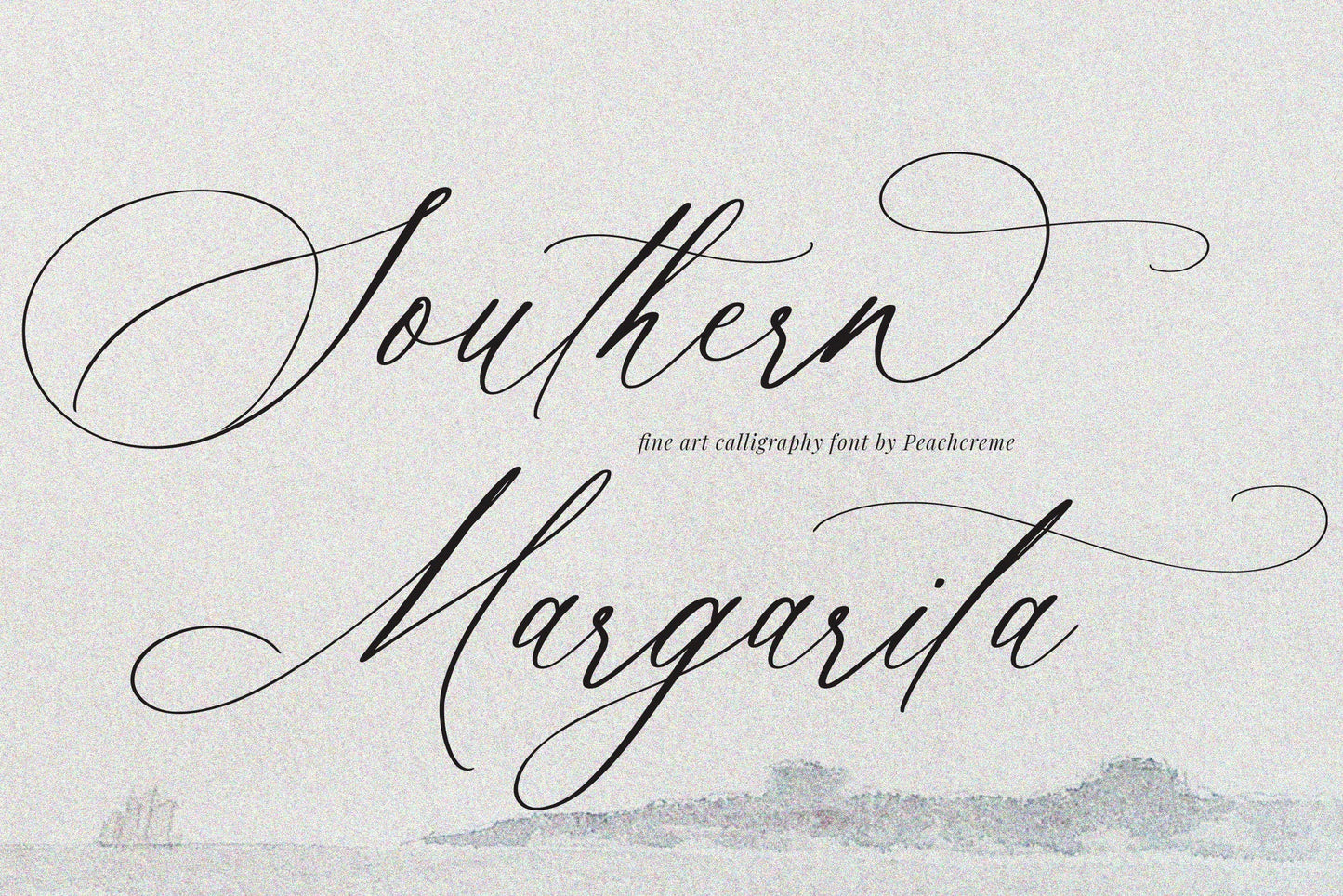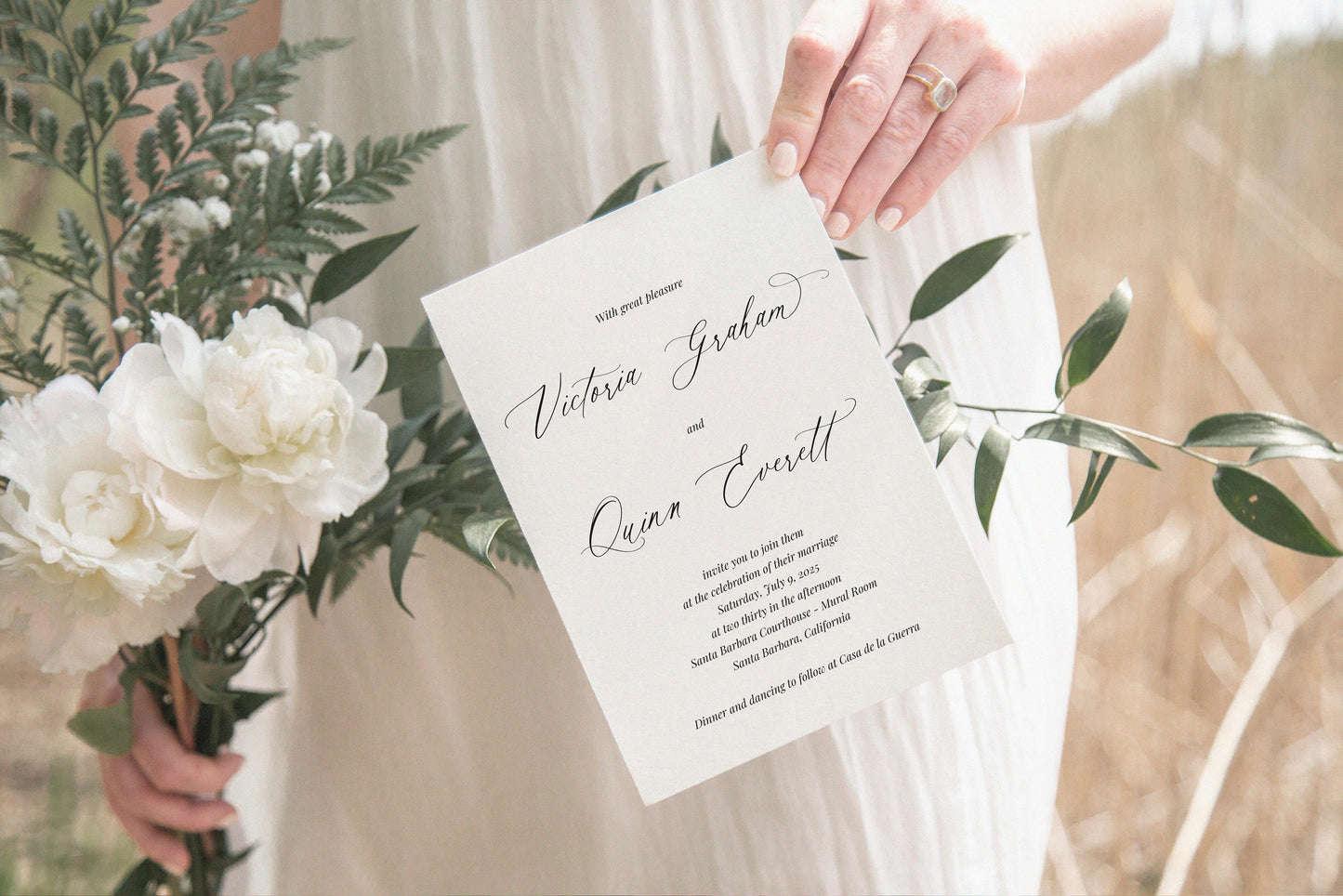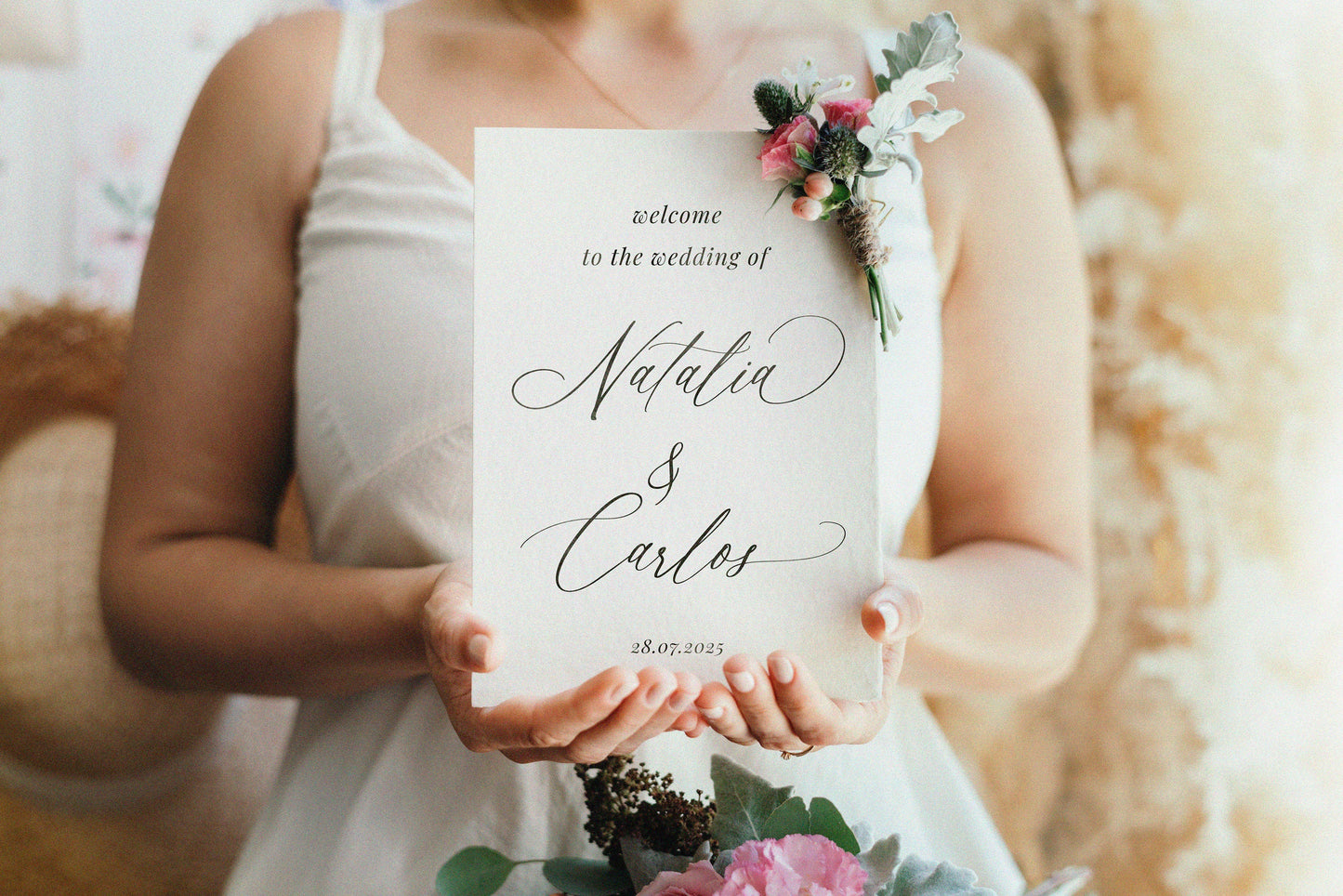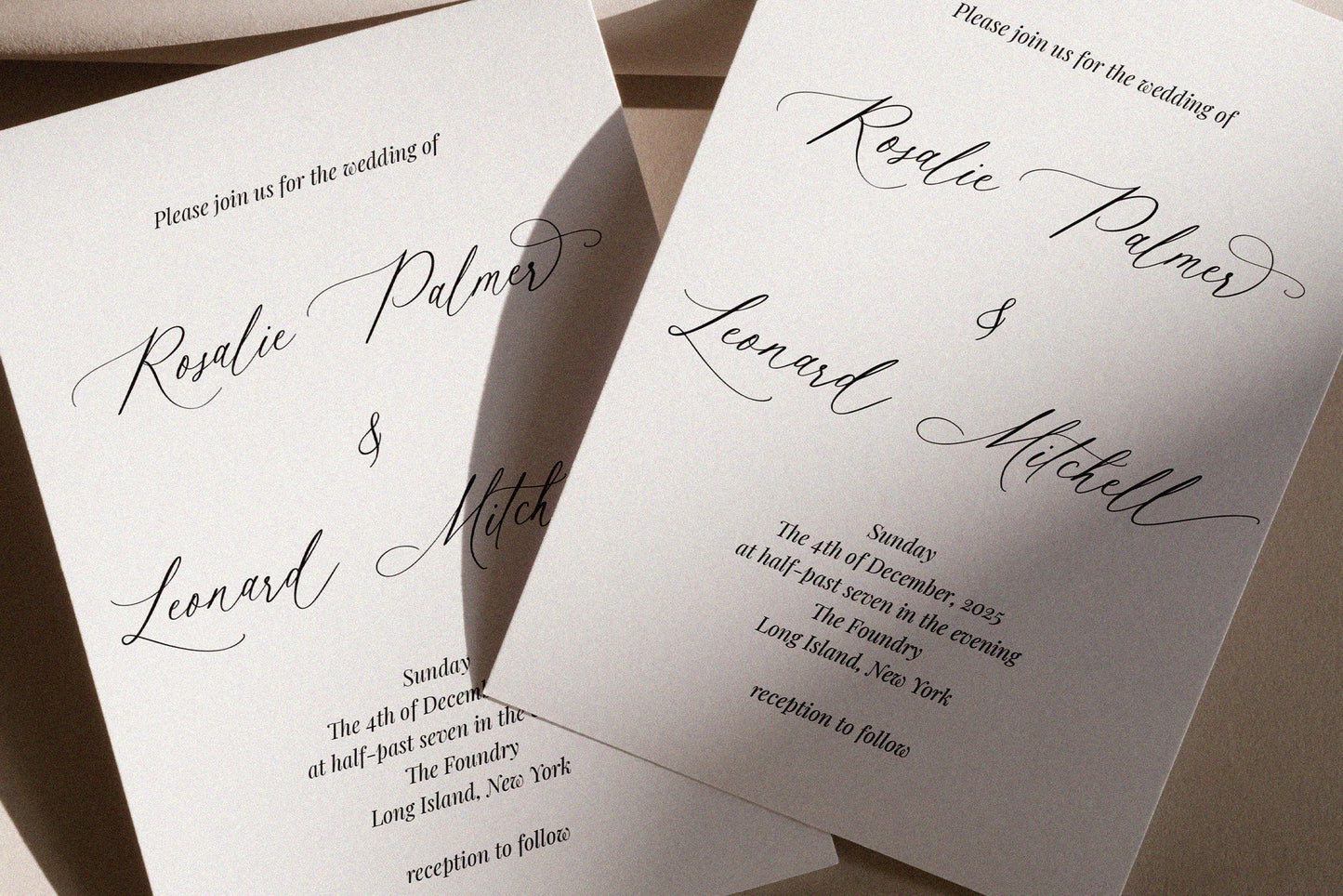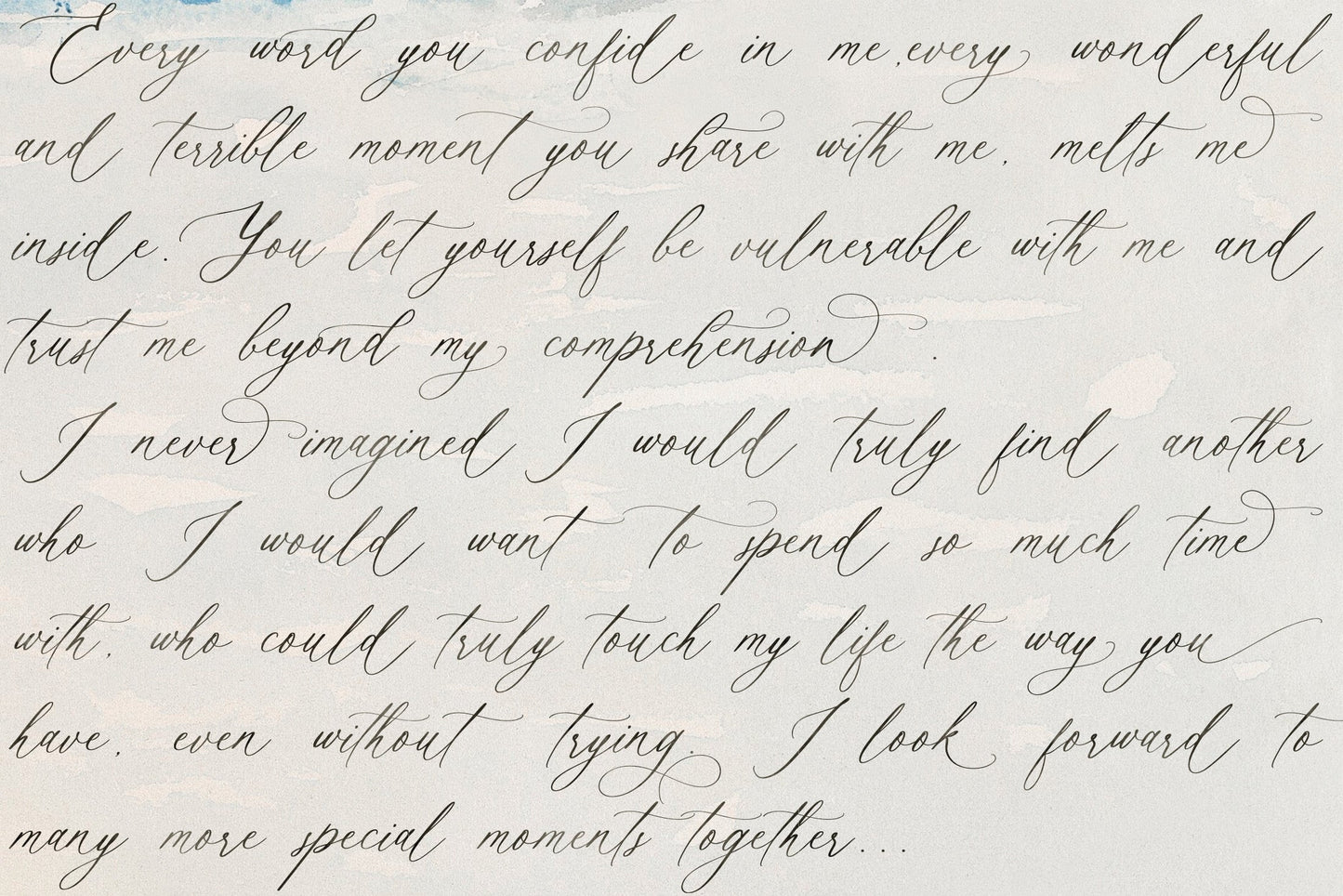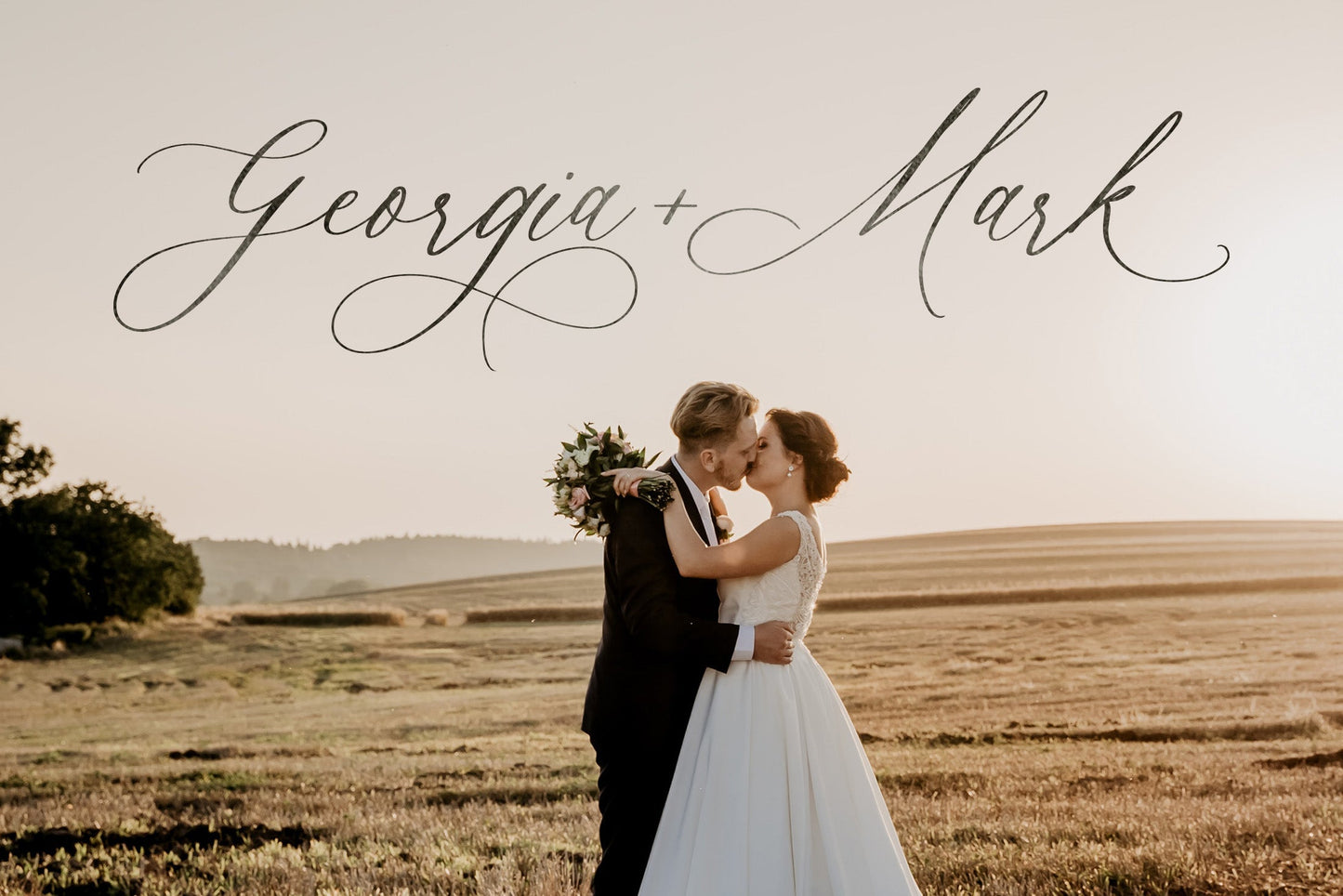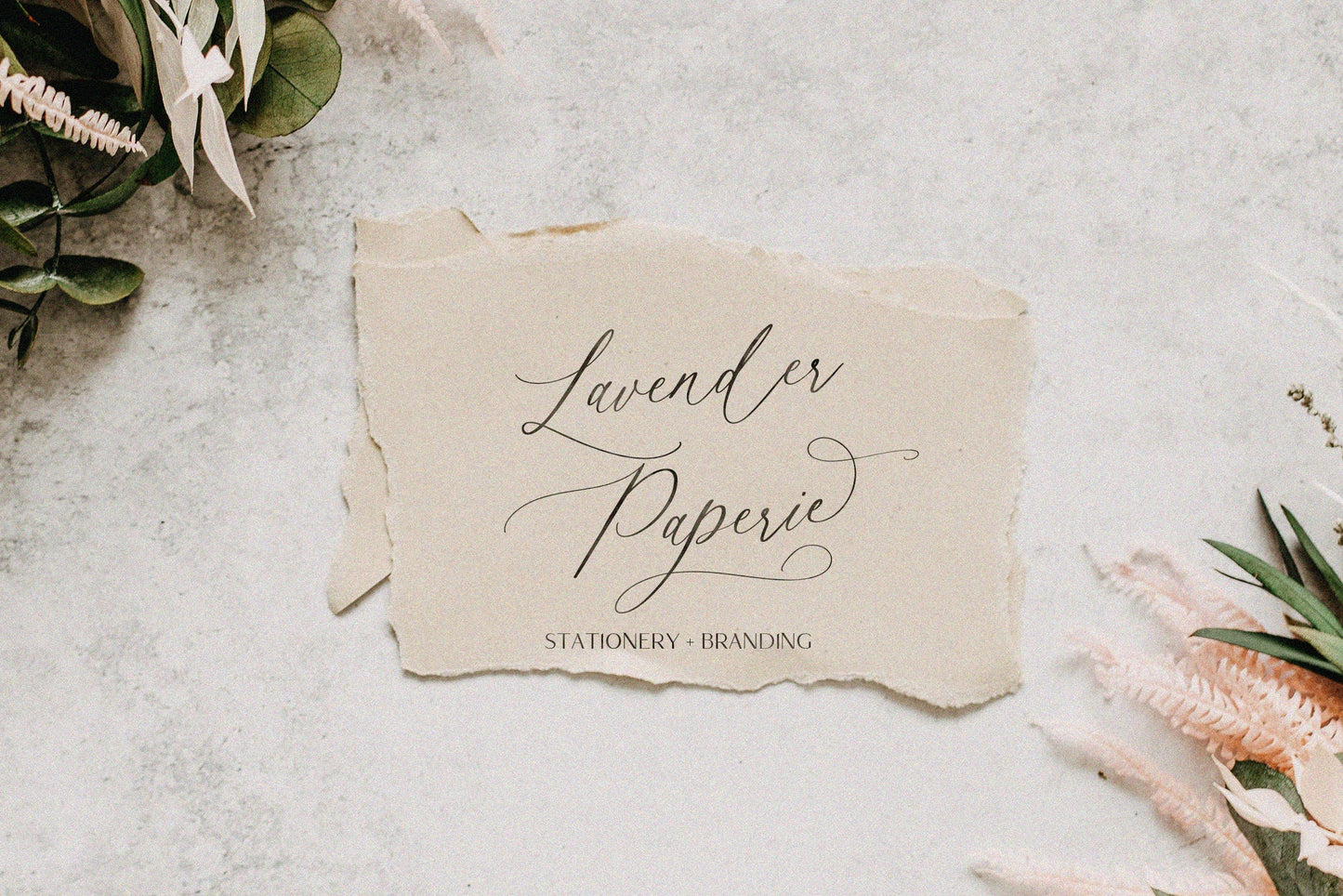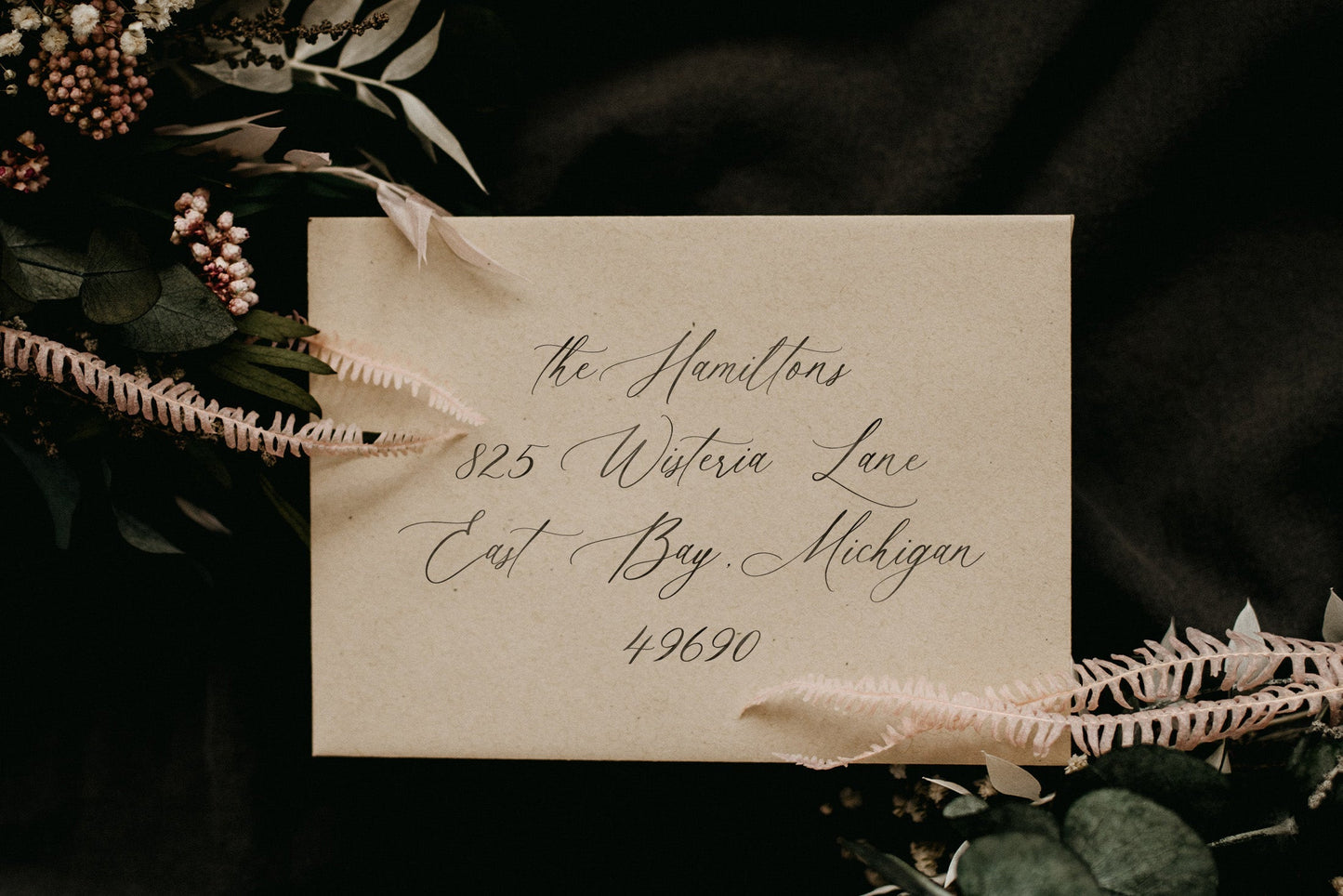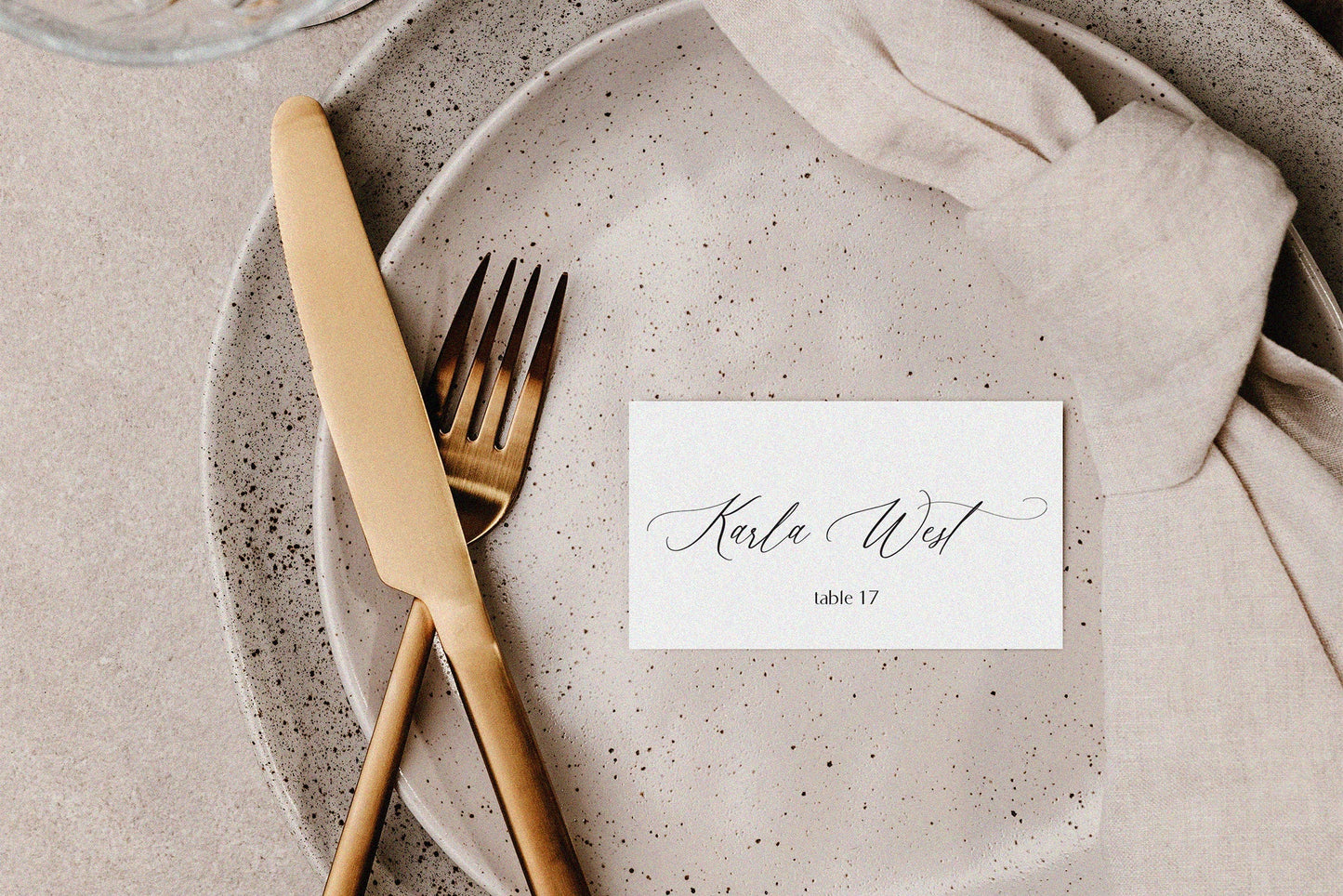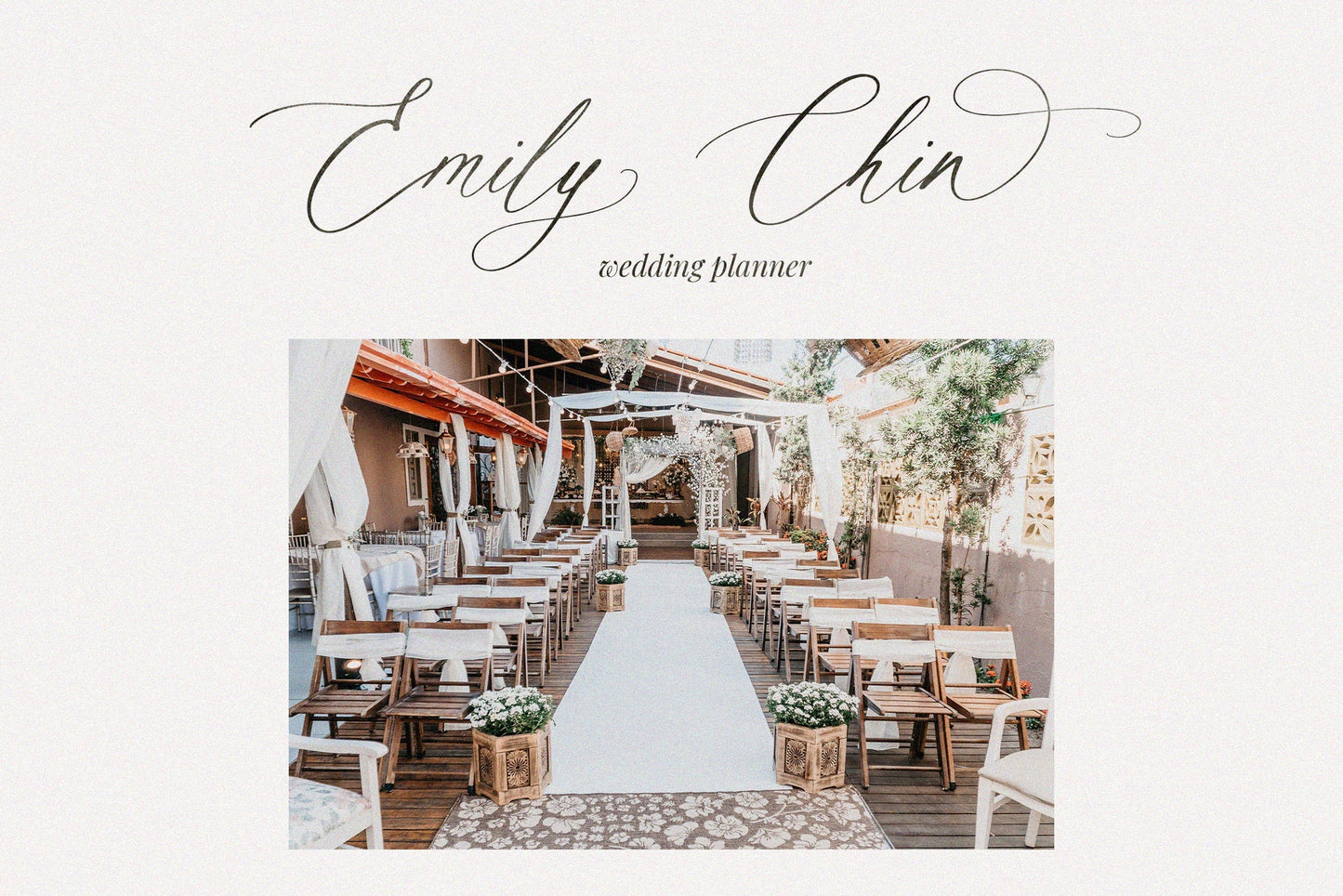
Southern Margarita // Calligraphy Font
Introducing our new "Southern Margarita" font, an elegant modern script font with delicate hand letters inspired by wedding calligraphy thematics. With the "Southern Margarita" script you get a full set of uppercase and lowercase letters, numbers, punctuation, and some double-letter ligatures for a natural lettering effect. Moreover, each lowercase letter has one gorgeous and absolutely unique swash. "Southern Margarita" is perfect for wedding stationery, websites, elegant logos, upscale packaging, and any other projects that call for a handwritten and refined touch.